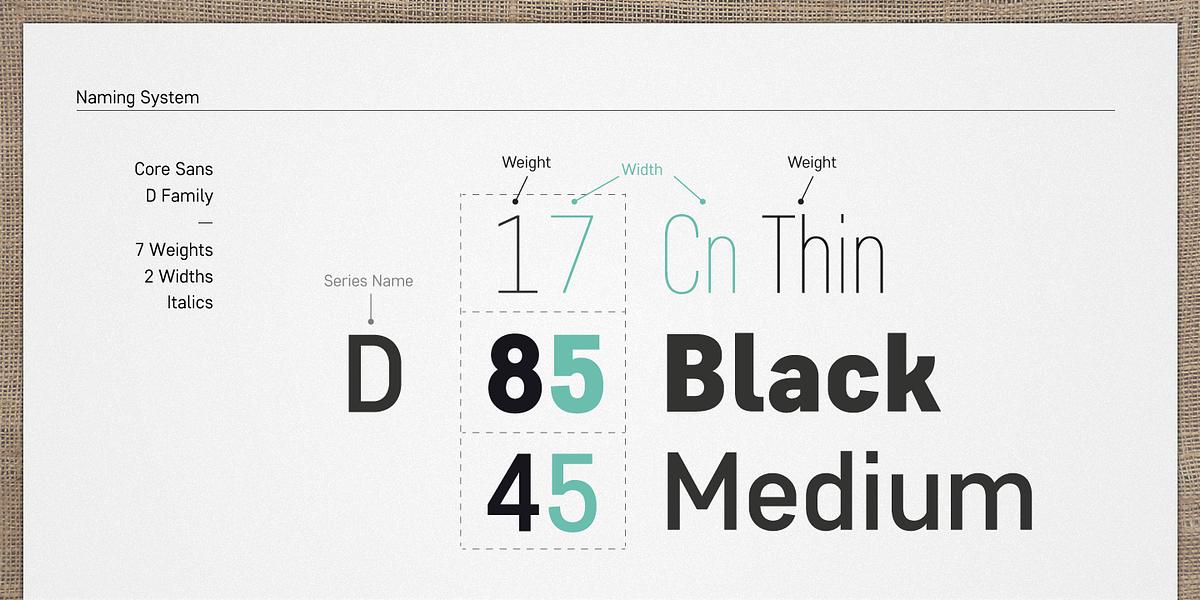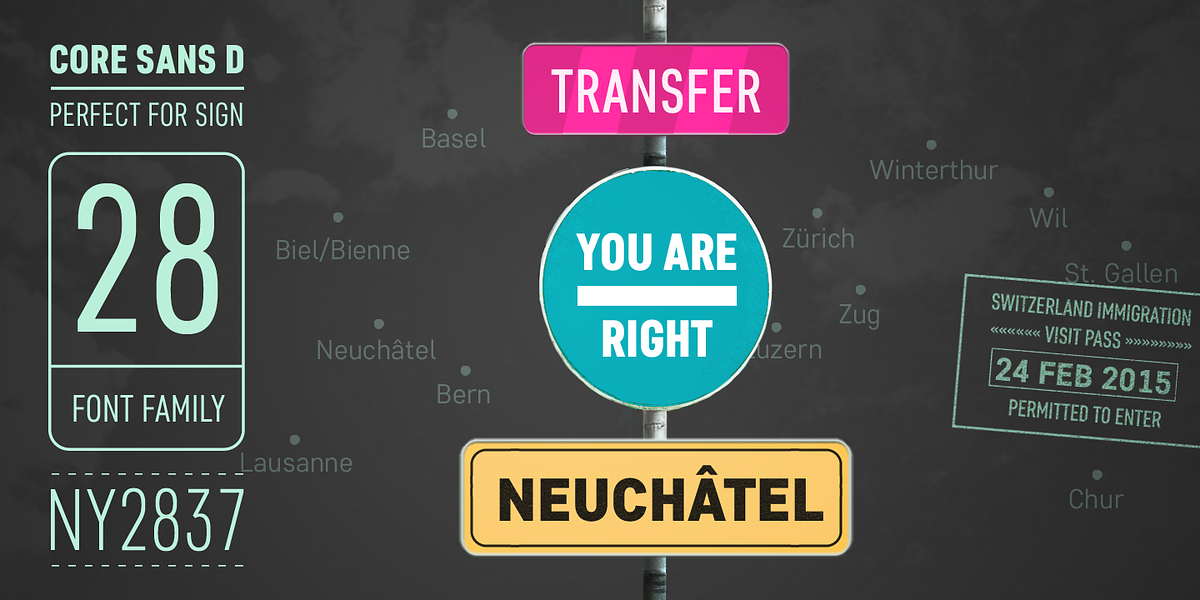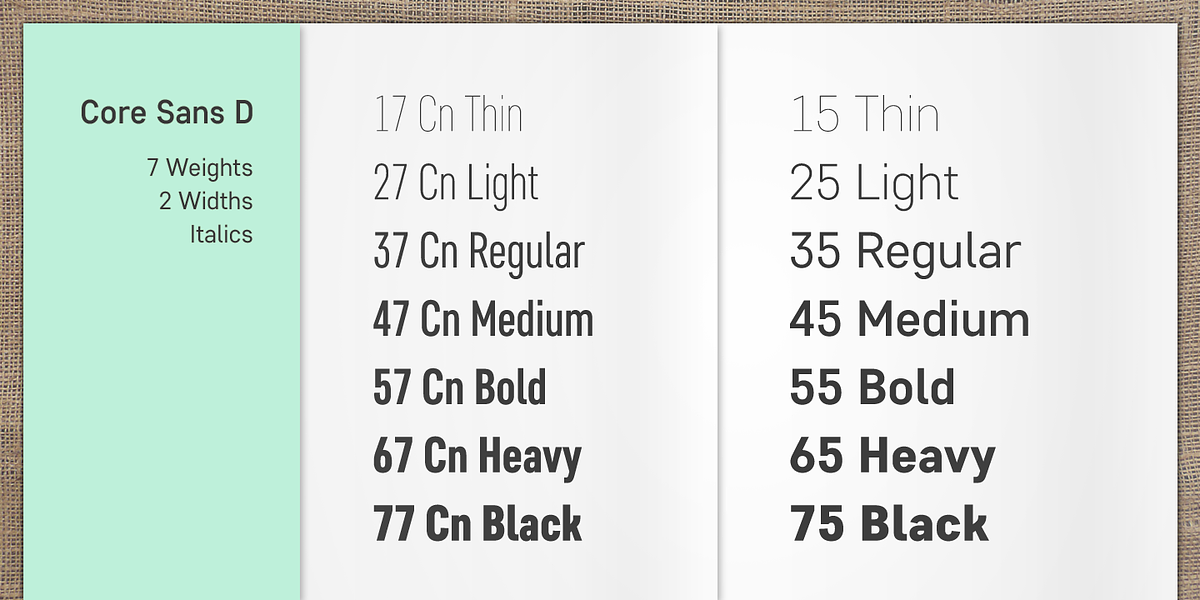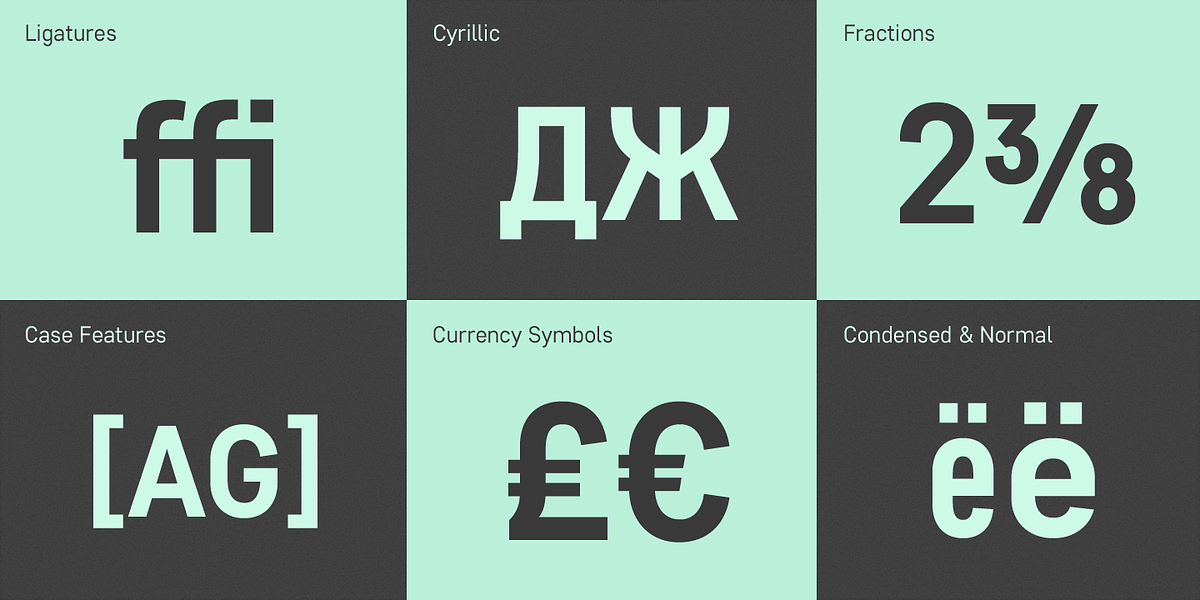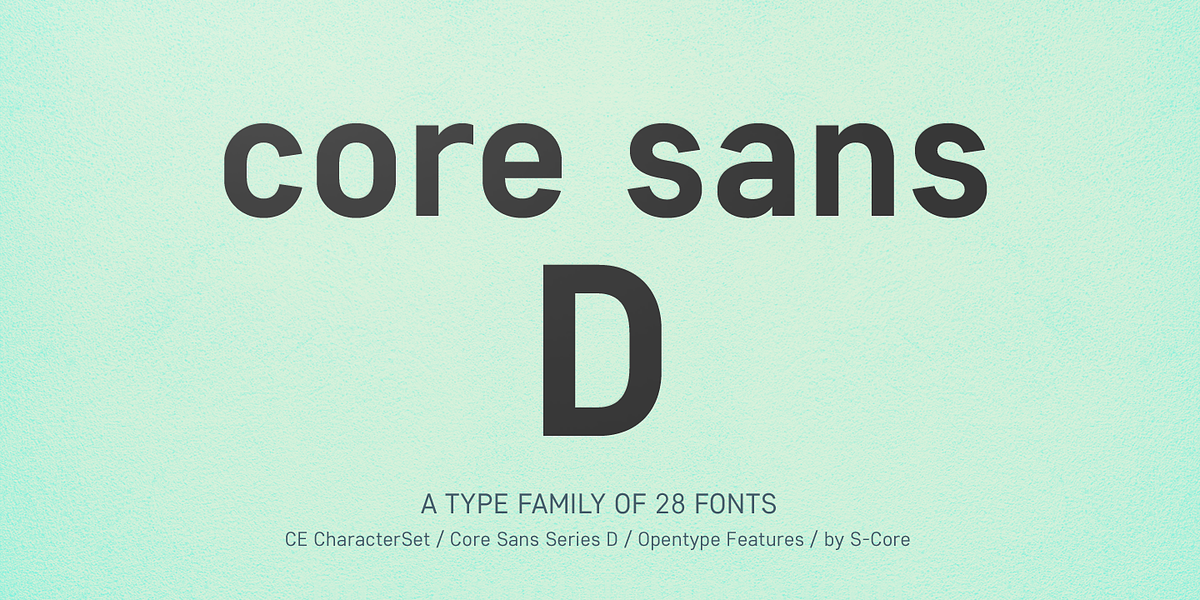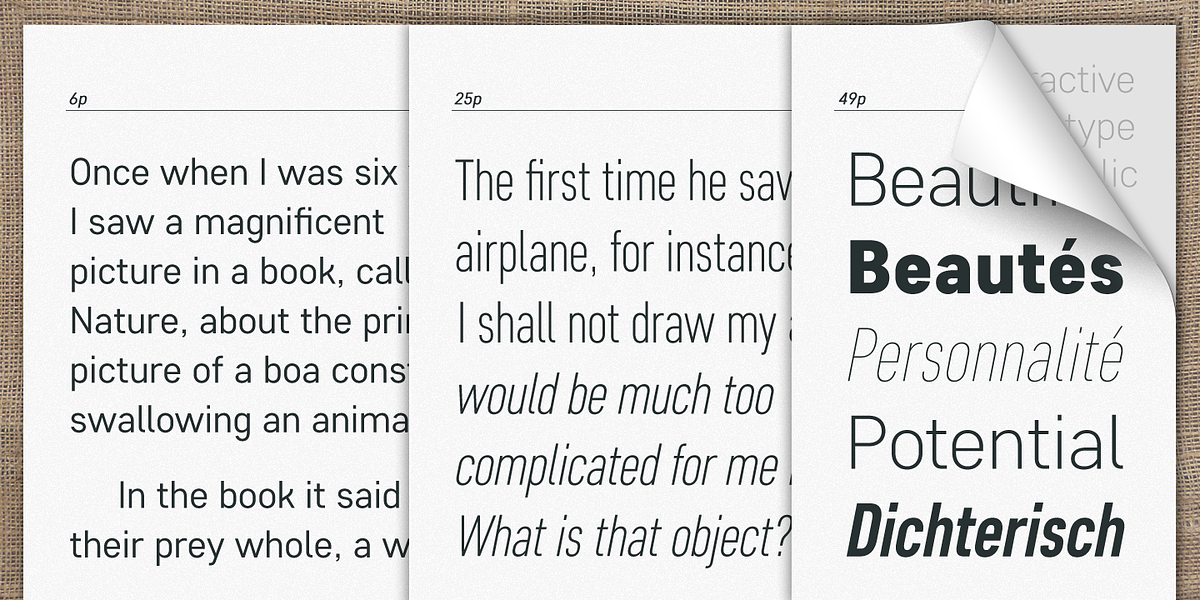
Core Sans D
Core Sans D is a modern sans-serif font designed by S-Core. It features a condensed geometric construction and a large x-height for enhanced readability. The family includes seven weights and two widths, making it suitable for both headlines and body text. Its simple letterforms and precisely adjusted spacing contribute to its clean and legible appearance.